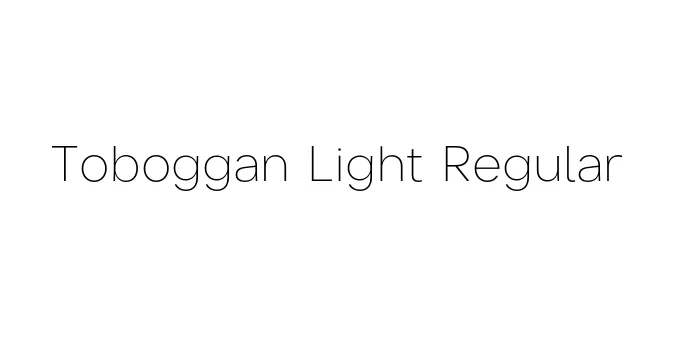
Toboggan Light Regular
Designed by Lukas Schneider
Toboggan Light Regular is a contemporary sans-serif typeface characterized by its clean, aerodynamic lines and subtle humanist influences. Designed with versatility in mind, this specific light weight offers a delicate yet legible presence on both digital screens and high-resolution print. The font's geometry is balanced by slightly rounded terminals, providing a friendly and approachable aesthetic without sacrificing professional rigor.
The history of the Toboggan family reflects a pursuit of a modern workhorse font that excels in user interface design and editorial layouts. Since its release, it has become a favorite for designers seeking a typeface that feels rhythmic and fluid. Its Light variant is particularly effective for large-scale display use where its refined proportions and elegant spacing can truly shine, making it an excellent choice for modern branding projects and high-end typography.
Toboggan Light Regular Best Uses
Excellent for magazine body text and sophisticated headers.
Perfect for clean, minimalist website interfaces and navigation menus.
Ideal for luxury, tech, or fashion-focused brand identities.
Provides high legibility for modern mobile application UI.